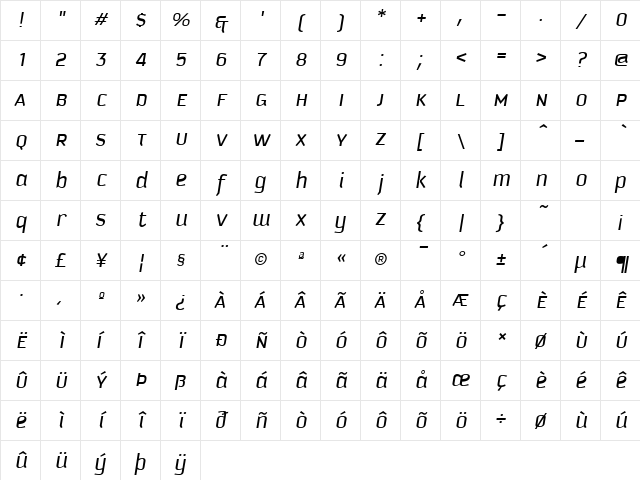
Kautiva Uni Italic Free Font
Kautiva Uni Italic
Foundry: SUDTIPOS. Disenada por Alejandro Paul y Alfredo Graziani. Todos los derechos reservados. Buenos Aires, Argentina
Design Context for Kautiva Uni
Kautiva Uni is a composed and adaptable typeface that performs quietly and consistently across a wide range of design contexts. The slanted form adds forward momentum and visual energy.
Who designed the Kautiva Uni Italic font?
This font was published by SUDTIPOS. Disenada por Alejandro Paul y Alfredo Graziani. Todos los derechos reservados. Buenos Aires, Argentina. Check the technical specs section for copyright and designer details.